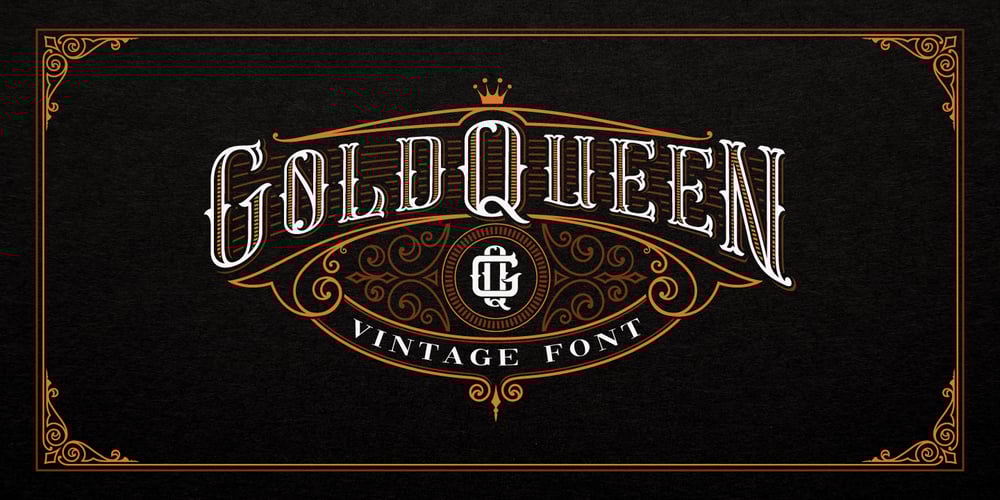
HKF Gold Queen DLC Font Family was designed by Igor Kasyanov and published by Harry Kasyanov. HKF Gold Queen DLC contains 5 styles and family package options. Gold Queen is a vintage font family with features opentype with extension svg. Perfect for the vintage tattoo studio logos, barbershops, alcohol labels and many other. Includes a full set of character A-Z, numerals, and punctuation. Product content: HKF Gold Queen Regular – (OTF) HKF Gold Queen Drop line – (OTF) HKF Gold Queen Drop shadow (B&W) – (OTF) Color fonts (available only with Adobe illustrator CC 2018 and Photoshop CC from 2017) HKF Gold Queen Drop line (color) – (OTF SVG) HKF Gold Queen Drop shadow (color) – (OTF SVG)